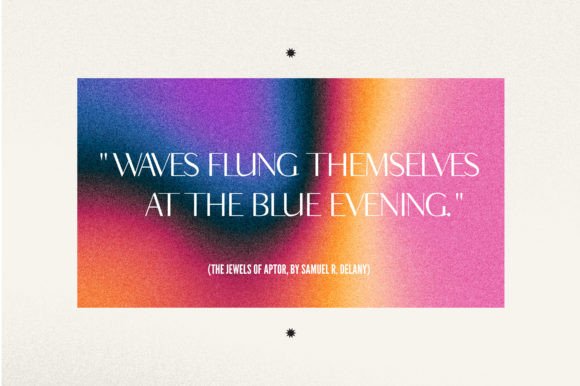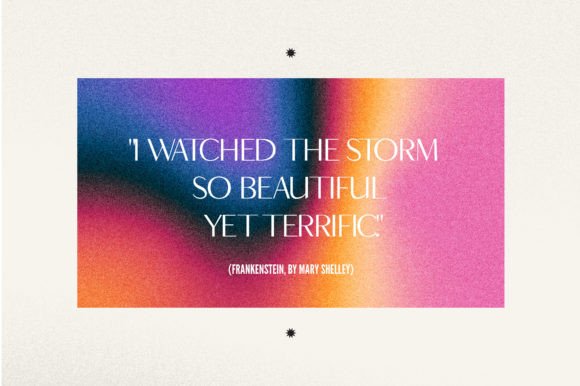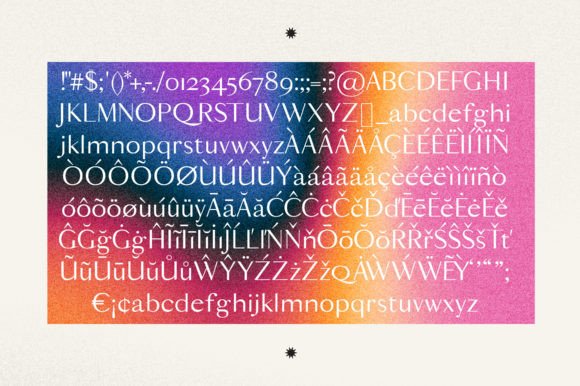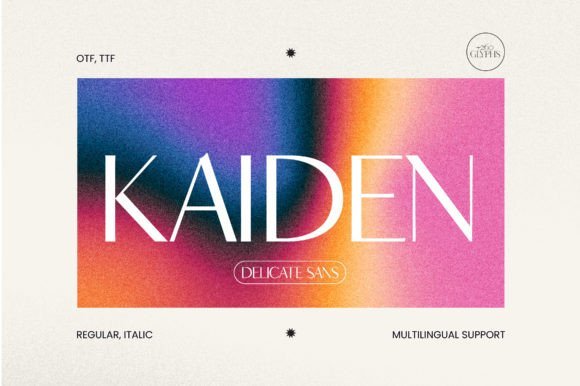
Meet Your New Design Best Friend: Kaiden Font
There’s nothing quite like the thrill of staring at a blank canvas, waiting for inspiration to strike. For designers, it’s a moment of pure creativity – the chance to bring an idea to life and make it shine. But what happens when that idea needs a little nudge? That’s where Kaiden Font comes in – a sleek and modern sans serif typeface designed to elevate any design project.
Kaiden Font is more than just a font – it’s a tool for designers to create a polished and professional look. With its clean, minimal lines and versatile style, it’s perfect for everything from headlines and logos to body copy and packaging. Whether you’re working on a website, brochure, or poster, Kaiden Font is the perfect companion to help you bring your vision to life.
With Kaiden Font, you can create designs that are not only visually appealing but also easy to read and understand. Its strong, legible letterforms make it perfect for any design project, and its lack of serifs gives it a contemporary feel that’s sure to impress.
Kaiden Font Key Features
• Font Family: Kaiden is a sans-serif font family, suitable for modern and clean designs.
• Character Count: The font family includes over 600 characters, including Latin, Cyrillic, and Greek alphabets, as well as various punctuation marks and symbols.
• Unique Characteristics: Kaiden features a unique blend of modern and minimalist design elements, with clean lines, rounded edges, and subtle flair.
Kaiden Font Review
I’ve had the chance to work with the Kaiden font, and I must say it’s a decent addition to any designer’s toolkit. Here are some of the things that work well:
• ✨ Clean and modern aesthetic: The Kaiden font has a sleek, contemporary look that’s perfect for modern branding and digital designs.
• ✨ Highly legible: The font is easy to read, even at smaller font sizes, making it a great choice for body text and other large blocks of text.
• ✨ Versatile: The Kaiden font comes in a range of weights and styles, making it suitable for a variety of design projects, from logos to typography-based artwork.
• ⚠️ Limited expressive power: While the Kaiden font is clean and modern, it may not be the best choice for projects that require a lot of emotional depth or personality.
• ⚠️ Not ideal for small text: While the font is legible at smaller sizes, it may still be a bit too thin and delicate for very small text sizes.
Overall, I’d say the Kaiden font is a solid choice for designers who need a clean, modern font for their projects. It’s not perfect, but it gets the job done. If you’re looking for a font that’s easy to read and works well in a variety of contexts, the Kaiden font is definitely worth considering.
Getting the Most Out of Kaiden Font
For the best results, use Kaiden Font in conjunction with bold and italic styles to create a visually appealing design. Experiment with different font sizes and colors to create contrast and emphasis.
Kaiden Font is ideal for use in digital design projects, such as:
• Marketing materials
• Branding and logos
• Infographics and charts
• Presentations and reports
Alternatives to Kaiden Font
Lato Font is a sans-serif typeface that is highly legible and versatile. It’s suitable for body text, headings, and titles. Lato Font has a clean and modern look, making it perfect for digital products, magazines, and websites.
Compared to Kaiden Font, Lato Font has a more geometric shape and a slightly larger x-height, making it easier to read in smaller sizes. It’s also more versatile and can be used in a wide range of contexts.